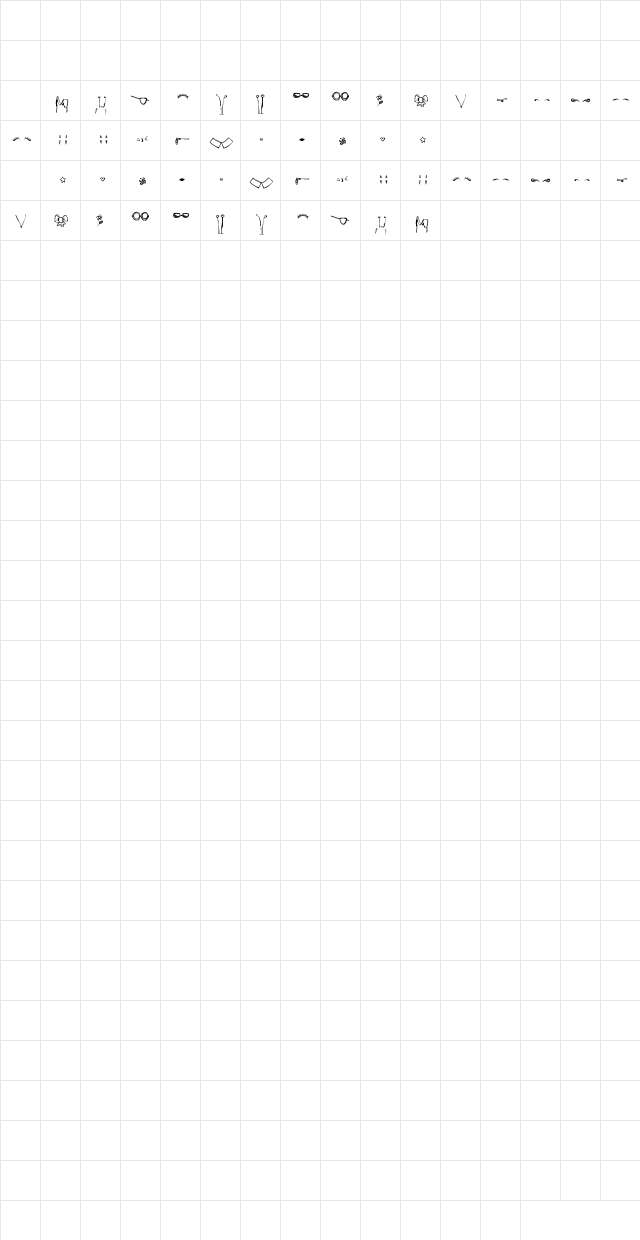
2Peas Pixie Mischief Regular
Design Context for 2Peas Pixie Mischief
2Peas Pixie Mischief is a composed and adaptable typeface that performs quietly and consistently across a wide range of design contexts.